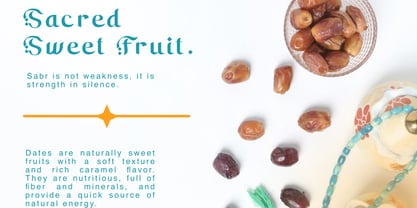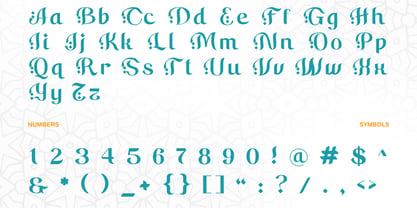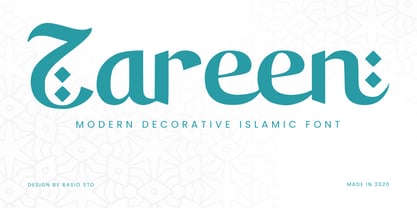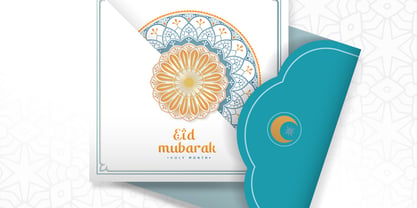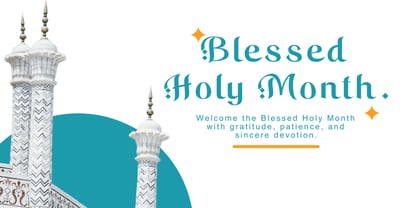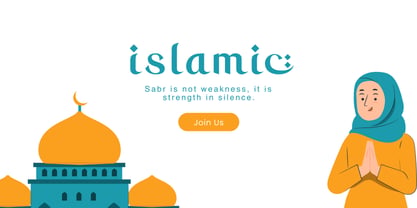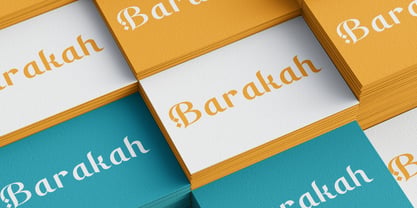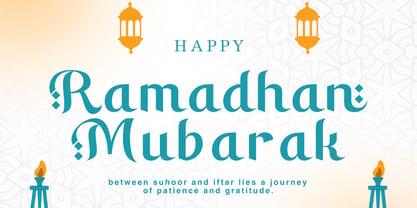
Zareen
Zareen is a modern decorative Islamic display font inspired by traditional Middle Eastern ornamentation and elegant Ramadan aesthetics. Designed with refined curves, stylized terminals, and distinctive diamond-shaped details, this typeface blends cultural richness with contemporary clarity. Zareen is highly relevant for Ramadan and Eid campaigns, Islamic event promotions, mosque event posters, greeting cards, luxury halal branding, cultural packaging, social media content, invitation designs, and religious celebration materials.